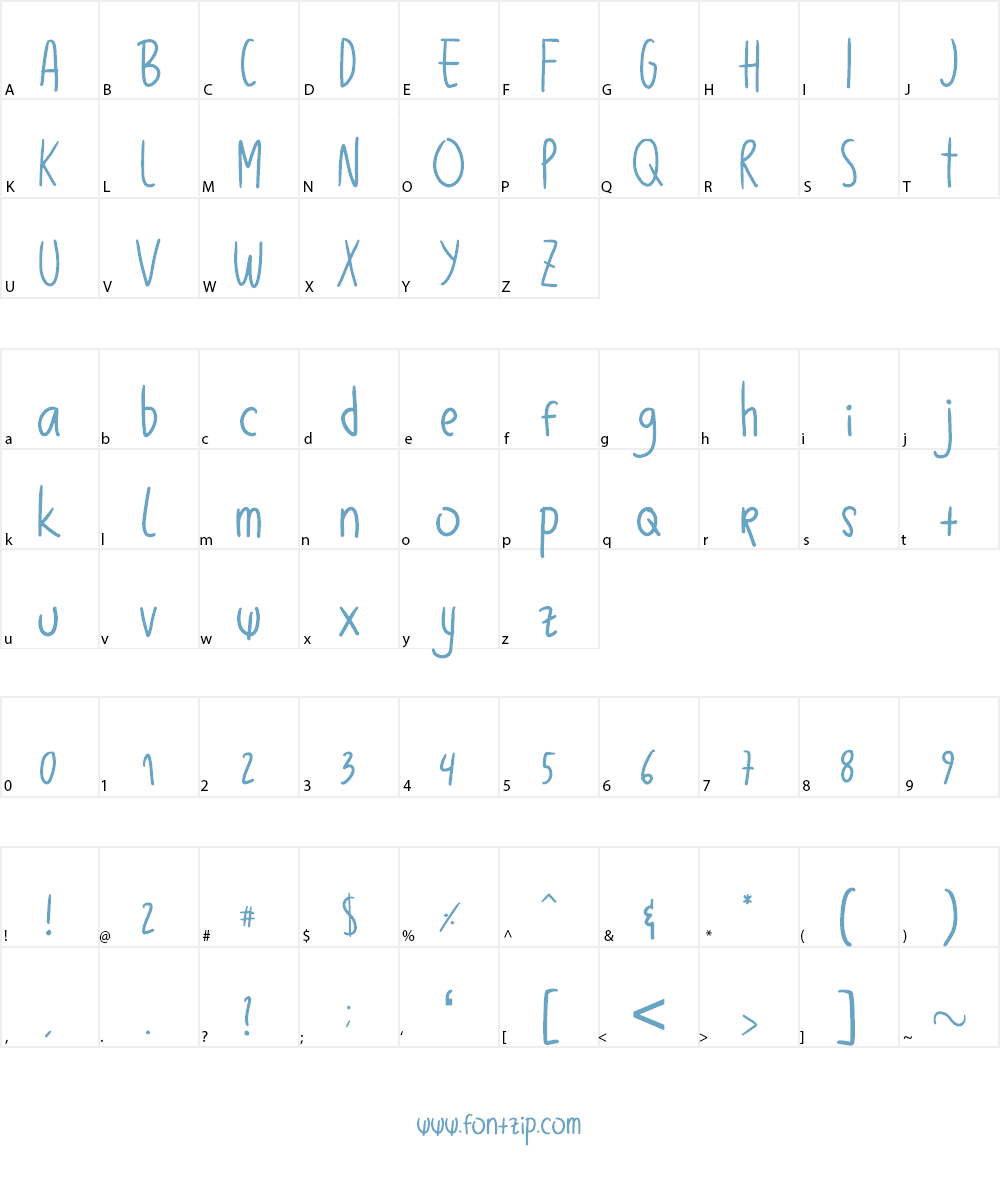
Introducing our fresh font Balibong! This font inspired by a Bali vibes, cause Bali have a lot of beach and cafe near from the beach.The concept came from the surf vibes in Bali, so this font is very match and perfect for any occasion about surf live or beach vibes. Balibong is a casual and sporty handwritten font with a natural feel. It will add a chill and cool feel to any design project!